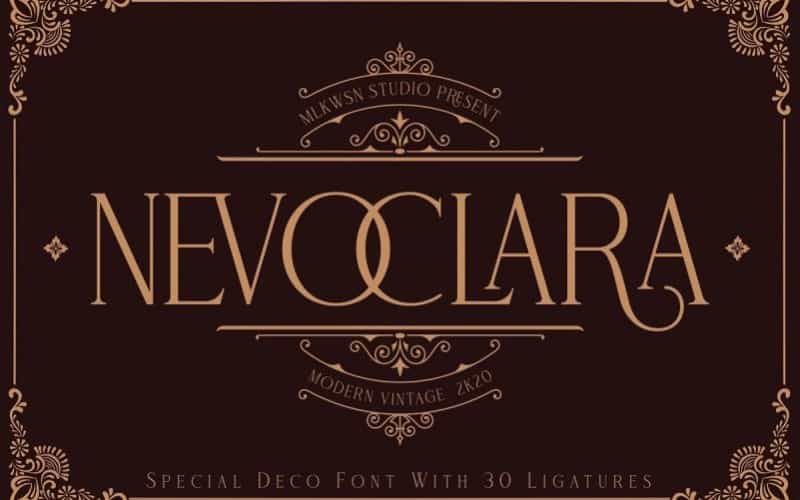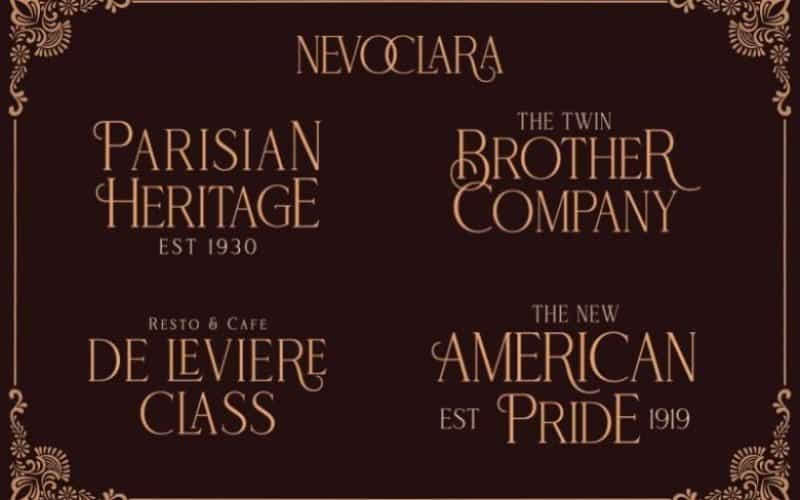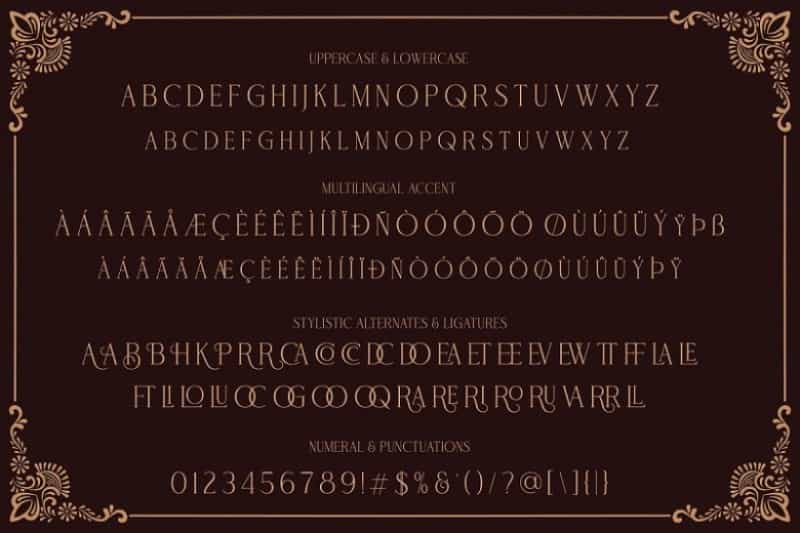
NEVOCLARA is a Modern Serif Vintage font featuring ligatures along with unique alternative glyphs and support for multiple languages. Inspired by the decorative arts movement and architectural styles from the 1920s onwards which evolved into a design trend, in Western Europe and the United States during the 1930s.